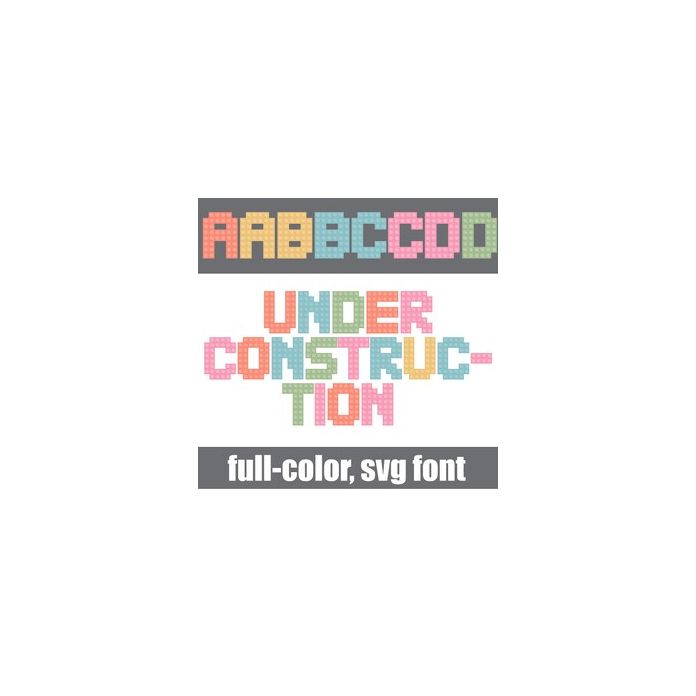
This full-color font features building blocks lettering in a spring color palette. There is an alt case w/ additional colors you can access through your system or Silhouette's glyph map.